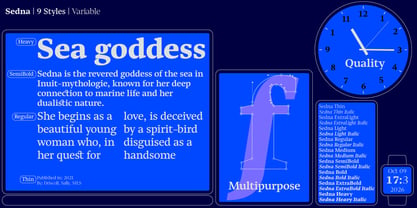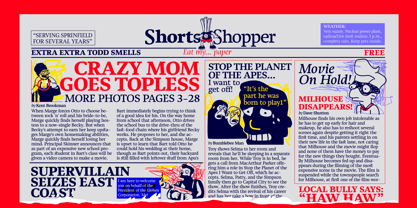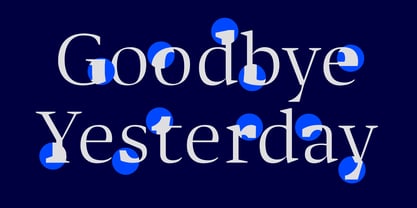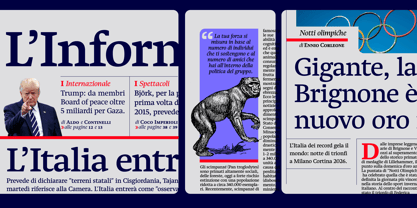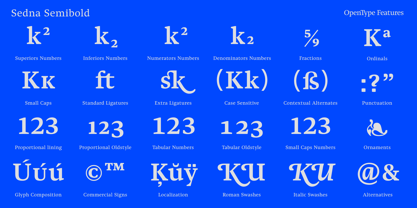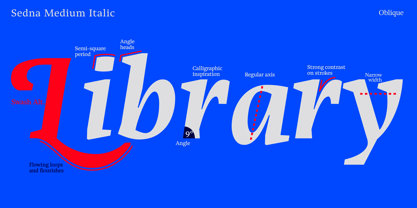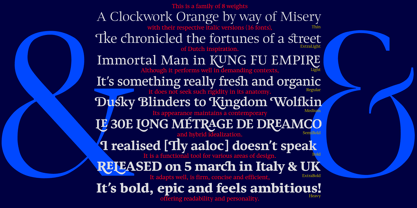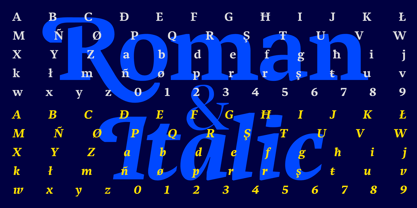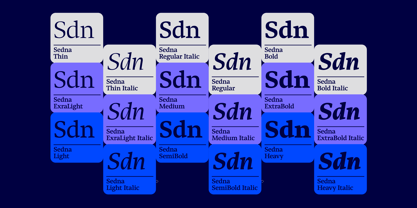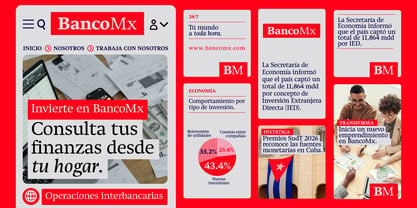
Sedna
by Sudtipos
The Sedna Font Family was designed by Raul Plancarte and published by Sudtipos. Sedna contains 20 styles and family package options.
Sedna is a type family designed for performance, clarity, and character. Comprising eight weights with matching italics, for a total of sixteen styles, it draws inspiration from the Dutch text type tradition—particularly the functional intelligence of Swift—while moving toward a more flexible and contemporary interpretation. Its structure is robust yet less anatomically rigid, allowing it to perform with ease across demanding editorial, graphic, and digital environments. Subtle micro-aesthetic decisions throughout the alphabet give Sedna a distinctive voice without compromising usability. The result is a family that balances technical precision with expressive warmth, combining solidity, rhythm, and a quietly singular presence. Versatile and dependable, Sedna adapts naturally to text, branding, interfaces, and visual systems that require both clarity and personality. Contemporary in spirit and confident in tone, it offers a refined balance between the familiar and the unexpected.